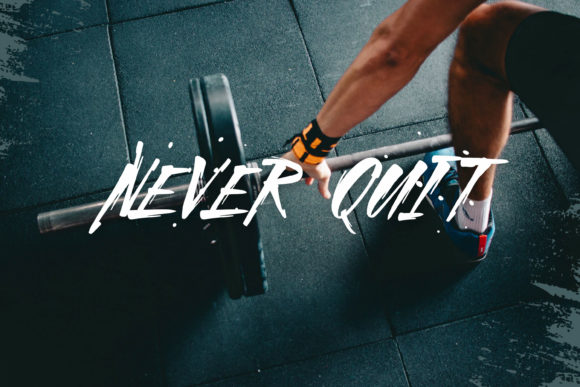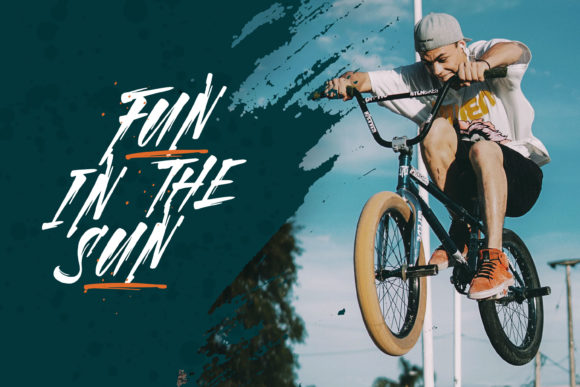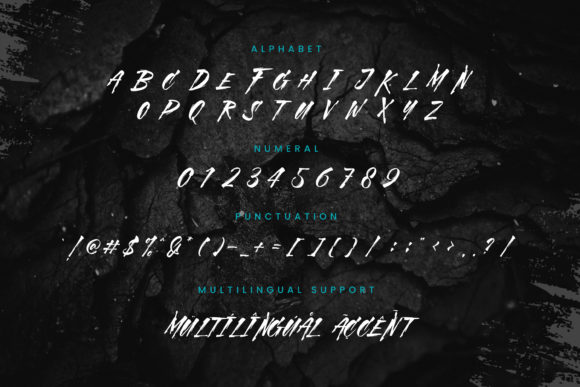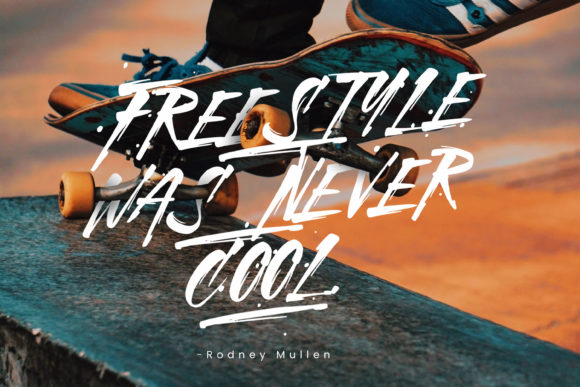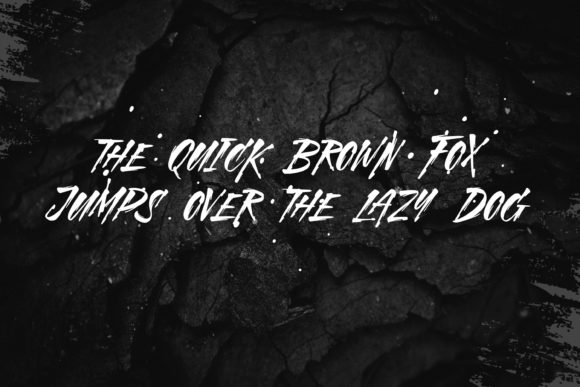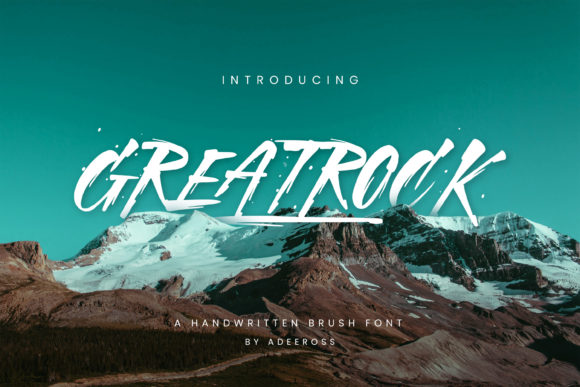
Introducing Greatrock Font: The Ultimate Display Font for Street Art and Urban Design
Are you a designer or crafter looking for a unique and bold font to elevate your street art or urban design projects? Look no further than Greatrock Font, a cool, bold, and rough textured display font that’s sure to make a statement. In this article, we’ll dive into the features and benefits of Greatrock Font, and explore how it can add a touch of edginess to your designs.
The Greatrock Font Difference
Greatrock Font is a one-of-a-kind display font that’s designed to add a rugged, urban feel to your designs. Its bold and rough textured appearance makes it perfect for creating eye-catching headlines, titles, and graphics that demand attention. Whether you’re working on a street art project, urban design, or simply want to add some edge to your typography, Greatrock Font is the perfect choice.
Key Features of Greatrock Font
- Bold and Rough Textured Appearance: Greatrock Font features a bold and rough textured appearance that adds a touch of grit and urban feel to your designs.
- Perfect for Display and Headings: Greatrock Font is designed specifically for display and headings, making it perfect for creating eye-catching titles and graphics.
- Easy to Read and Versatile: Despite its bold and rough appearance, Greatrock Font is easy to read and versatile, making it suitable for a wide range of design projects.
Benefits of Using Greatrock Font
So, why choose Greatrock Font for your design projects? Here are just a few benefits of using this amazing display font:
- Adds a Touch of Edginess: Greatrock Font adds a touch of edginess and urban feel to your designs, making them stand out from the crowd.
- Increases Visual Impact: The bold and rough textured appearance of Greatrock Font increases visual impact, making your designs more attention-grabbing and engaging.
- Perfect for Street Art and Urban Design: Greatrock Font is specifically designed for street art and urban design, making it the perfect choice for designers and crafters working in these fields.
- Easy to Use and Customize: Greatrock Font is easy to use and customize, making it simple to incorporate into your design workflow.
How to Use Greatrock Font in Your Designs
Using Greatrock Font in your designs is easy. Here are a few tips to get you started:
- Pair with Other Fonts: Pair Greatrock Font with other fonts to create a unique and visually appealing typography combination.
- Experiment with Colors and Textures: Experiment with different colors and textures to add depth and interest to your designs.
- Use for Headings and Titles: Use Greatrock Font for headings and titles to add a touch of edginess and urban feel to your designs.
- Customize to Fit Your Brand: Customize Greatrock Font to fit your brand and design style, making it a seamless part of your design workflow.
| Font Name | Greatrock Font |
In conclusion, Greatrock Font is a cool, bold, and rough textured display font that’s perfect for street art and urban design projects. Its unique features and benefits make it an excellent choice for designers and crafters looking to add a touch of edginess to their designs. With its ease of use and customization options, Greatrock Font is sure to become a staple in your design toolkit. So why wait? Download Greatrock Font today and start creating amazing designs that demand attention!